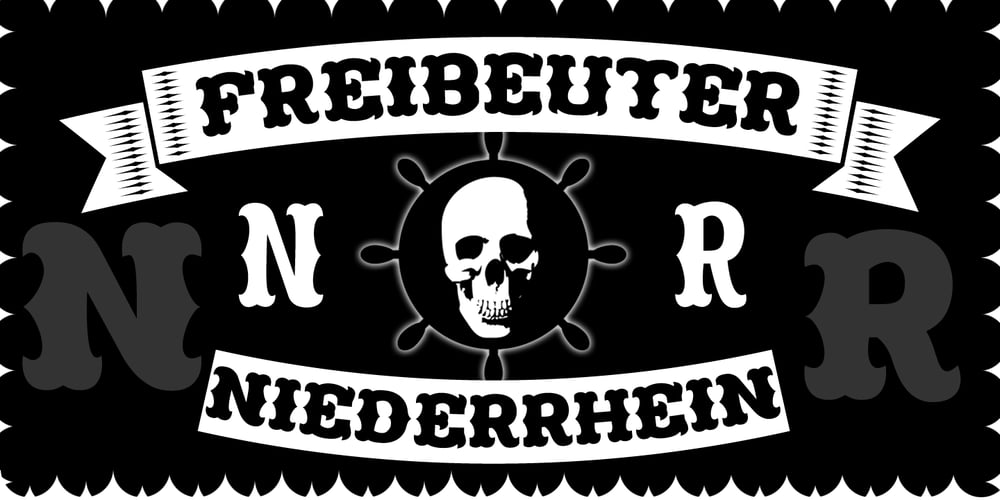
Freibeuter NR Font Family was designed by Otto Maurer and published by Otto Maurer. Freibeuter NR contains 14 styles and family package options. FREIBEUTER NR is a typical Western font but this is based on a FAMOUS Motorcycle Club from the television that everyone knows. The word FREIBEUTER is the German version of pirate. FREIBEUTER did in earlier times what pirates do, but they do it with the government togetherness. NR stands for NIEDERRHEIN, this is the area where I live and work. The PATCH Version is the best way to make fast a nice Banner or Patch with this font. You can use the WrapTEXT tool in Illustrator or Photoshop to wrap the banner in al forms!